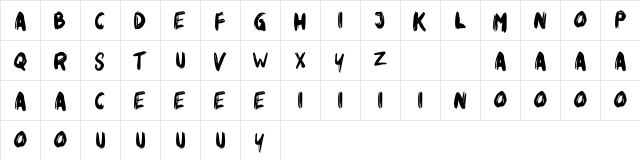
Rikabrush Regular Free Font
Rikabrush Regular
Designer: Sigit Dwipa
Design Context for Rikabrush
Rikabrush flows with the natural rhythm of handwritten lettering, making it ideal for designs that call for warmth and personal expression.
Font Pairing: Combine Rikabrush with a simple geometric sans for maximum contrast - the tension between flowing curves and clean structure is a classic typographic pairing.
Pro Tip: Use Rikabrush for short runs of text - names, titles, or taglines. Extended body copy in script faces tires the eye quickly.